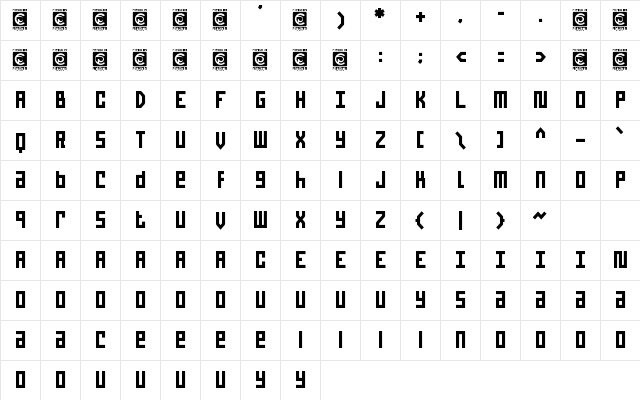
Pixel Bit Free Regular
| Foundry | Putracetol Studio |
| Designer | Putra Novembria Candra Kusuma |
Design Context for Pixel Bit Free Typeface
Pixel Bit Free celebrates the constraints of early digital type, turning pixel geometry into a distinctive and immediately recognisable style.
Well-suited to indie game interfaces, retro computing aesthetics, and pixel art-adjacent design work.